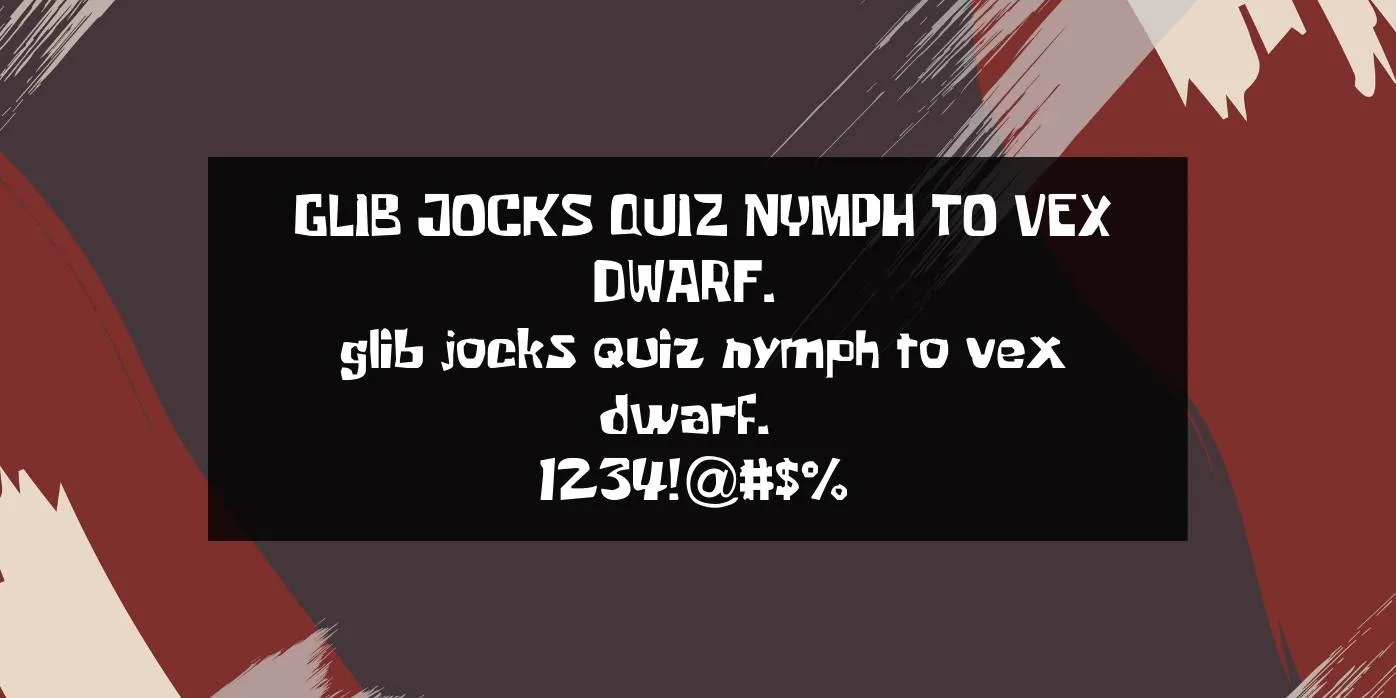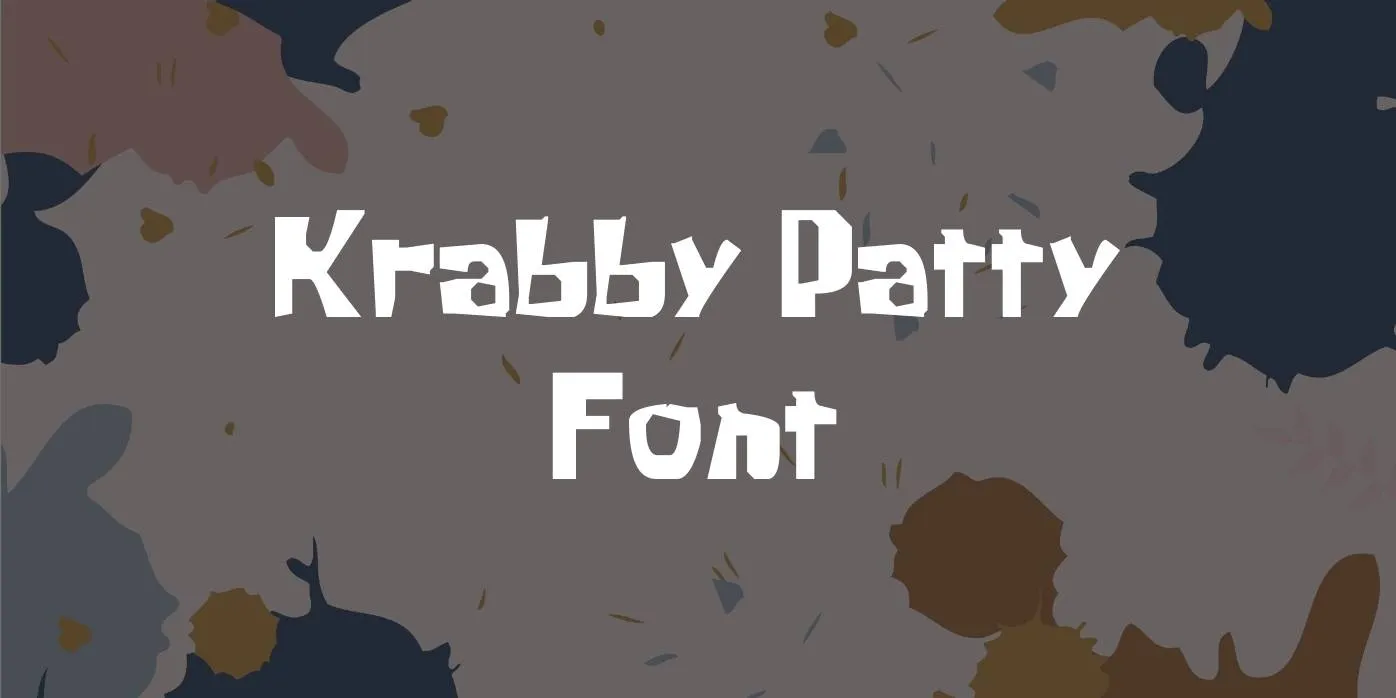
Krabby Patty Font
Krabby Patty Font belongs to the fancy font family and was developed by Seil. Its design is based on the popular SpongeBob Squarepants character, Krabby Patty. The font is available in two versions: regular and stencil. This typeface is perfect for creating fun, friendly designs.
Its copy and paste function is best for all designs. It can be used for headers, banners, titles, and more. You can even use it to make your Krabby Patties. This typeface has different advanced characters like discretionary ligatures, fractions, and old-style figures.
This typeface is a great choice for those who want to add a touch of fun and friendliness to their designs.